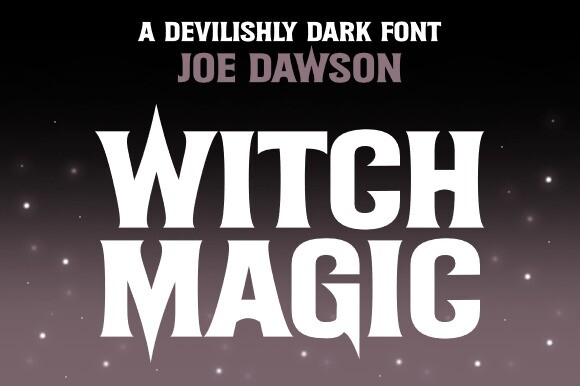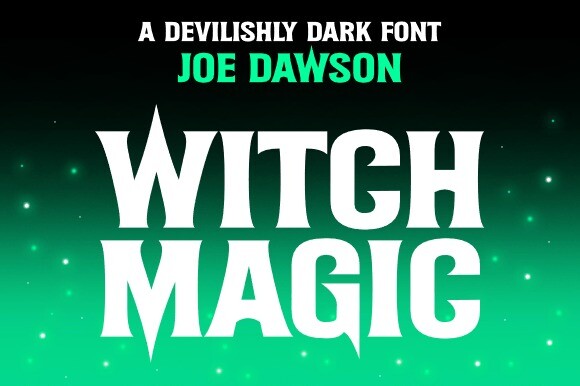
Witch Magic Font
Witch Magic Font is an impressive font with bold wide typefaces. With its spellbinding curves and mystic allure, this typeface is your gateway to crafting bewitching invitations, posters and the kind of mystical branding that will most certainly conjure up the kind of magic you are looking for in every project.